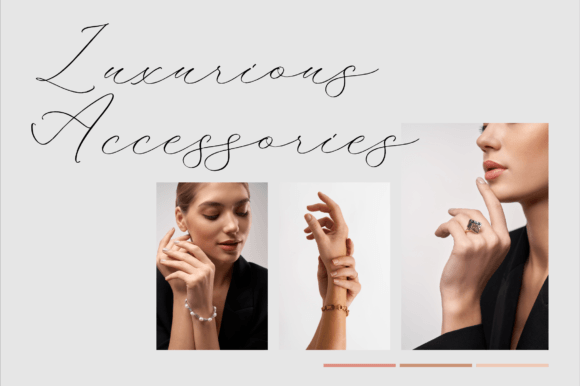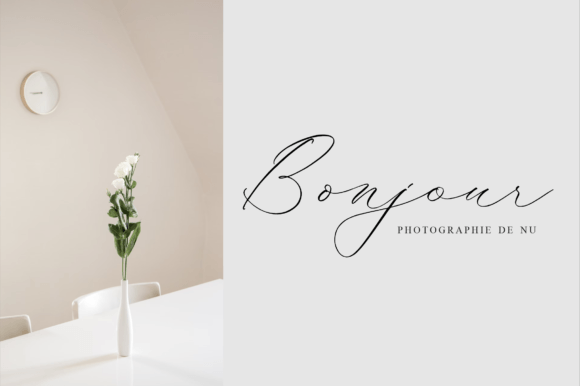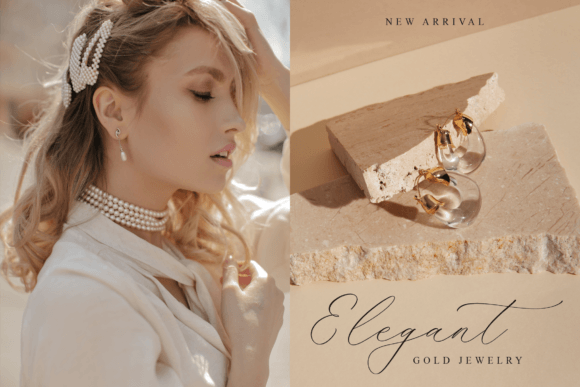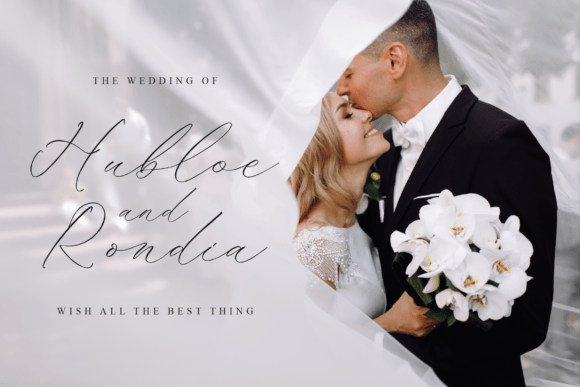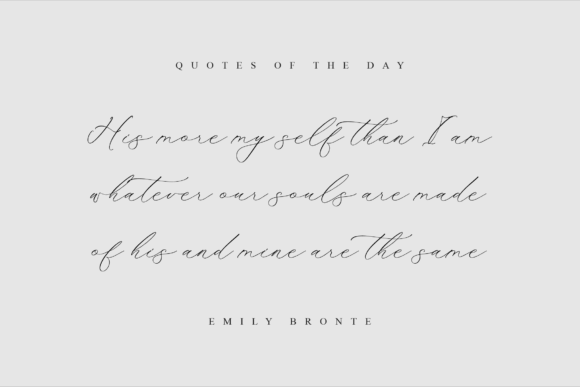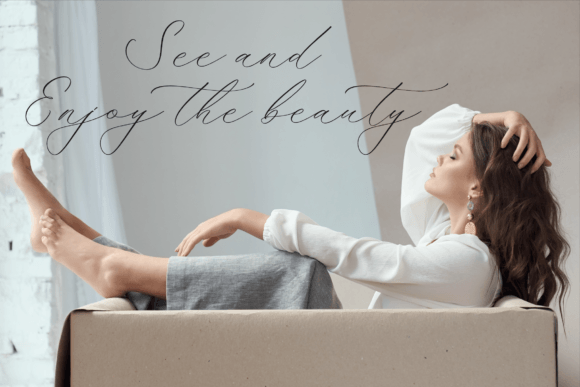
Discover the Charm of Harttenly Mondise Font: Elevate Your Designs with Elegance
In the world of typography, few fonts manage to strike a balance between charm and elegance. However, the Harttenly Mondise font stands out as a shining example of a typeface that feels equally charming and elegant. This beautiful handwritten font is perfect for designers and crafters looking to add a touch of sophistication and personality to their projects. Whether you’re working on wedding invitations, thank you cards, quotes, greeting cards, logos, business cards, or any other design that needs a handwritten touch, Harttenly Mondise is an excellent choice.
The Unique Characteristics of Harttenly Mondise
Harttenly Mondise boasts a unique set of characteristics that set it apart from other fonts. Its handwritten nature gives it a personal and intimate feel, making it perfect for designs that require a touch of warmth and elegance. The font’s flowing lines and curves create a sense of movement and fluidity, adding to its charm and sophistication. Whether you’re looking for a font to use in a formal or informal setting, Harttenly Mondise is versatile enough to adapt to any design style.
Wedding designers and event planners, rejoice! Harttenly Mondise is an excellent choice for creating stunning wedding invitations, save-the-date cards, and other event-related designs. Its elegant and charming feel makes it perfect for formal events, while its handwritten nature adds a touch of warmth and personality. Use Harttenly Mondise to create beautiful wedding stationery, including thank you cards, place cards, and menus, to give your clients’ special day a memorable and unique touch.
Ideal for Crafters and DIY Enthusiasts
Crafters and DIY enthusiasts will love Harttenly Mondise for its versatility and ease of use. Whether you’re creating handmade cards, gift tags, or other paper crafts, this font is perfect for adding a personal touch to your projects. Use Harttenly Mondise to create beautiful quotes, inspirational messages, or simple greetings that will make your handmade crafts stand out. The font’s charming and elegant feel will elevate your designs and give them a professional finish.
Tips for Using Harttenly Mondise in Your Designs
- Use it for headlines and titles: Harttenly Mondise is perfect for creating eye-catching headlines and titles that will grab attention.
- Pair it with complementary fonts: Combine Harttenly Mondise with other fonts to create a unique and visually appealing design.
- Experiment with colors: Try out different colors and textures to add depth and interest to your designs.
- Keep it simple: Don’t be afraid to keep your design simple and elegant. Harttenly Mondise’s charm and elegance will shine through.
In conclusion, Harttenly Mondise is a beautiful and versatile font that feels equally charming and elegant. Its unique characteristics, elegance, and handwritten nature make it perfect for a wide range of design projects, from wedding invitations and event designs to paper crafts and DIY projects. Whether you’re a designer, crafter, or DIY enthusiast, Harttenly Mondise is an excellent choice for adding a touch of sophistication and personality to your designs. So why not give it a try and see how it can elevate your designs to the next level?